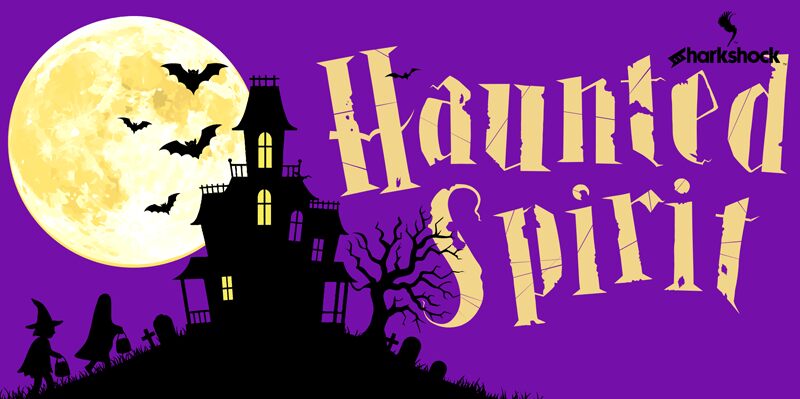
Haunted Spirit font by Sharkshock is a handwritten font within a Halloween theme. The free font consists of drawings imitate by human hands, and that makes them so special with their unique shape and design. The typeface includes upper and lowercase letters in addition to a few others elements.
Although it looks evil, creepy, and even scary, the way Haunted Spirit was drawn makes it look smooth, elegant and add to it that artistic and stylish look. It is perfect for decoration purposes. Use it on greeting cards, invitation cards, magazines, books, website designs, and video games designs.
Haunted Spirit is a Halloween-themed display font that brings a touch of spookiness to your projects. Featuring asymmetrical strokes and jagged lines, this font family embodies a whimsical character. Many of the serifs, cross bars, ascenders, and other features terminate in a root-like fashion, enhancing its unique design.
The font includes three different versions to allow you to control the level of distress, along with two sets of alternates for Basic Latin characters. With OTF programming, you can cycle through multiple instances of a letter within a single word, provided your application supports it. Use Haunted Spirit for a party invitation, movie poster, or a witch-themed book.